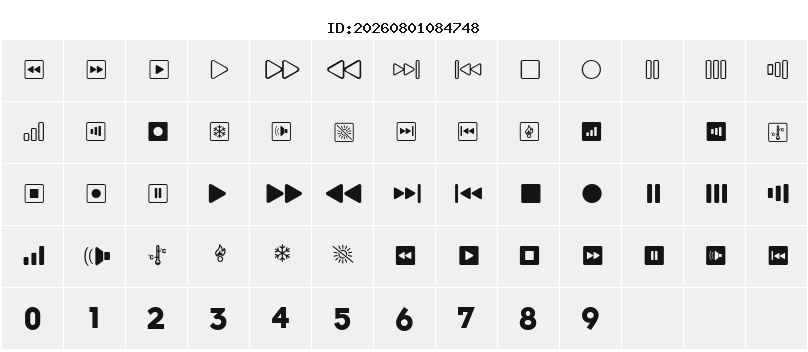
About LL_Record.ttf
LL_Record.ttf is a modern, elegant sans-serif font designed for ultimate readability and visual harmony. Perfect for branding, headlines, web design, and print materials.